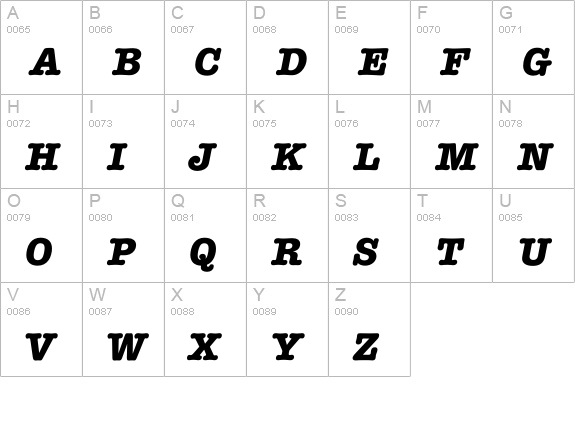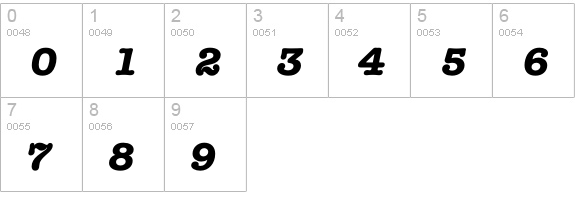
RomtypewriterBoldItalic Font Details
RomtypewriterBoldItalic is a striking and versatile font that combines boldness with elegance. Its italicized style adds a touch of sophistication to any design project, making it perfect for headings, titles, and quotes. This font exudes a sense of modernity and creativity, making it a great choice for both print and digital media. What sets RomtypewriterBoldItalic apart is not just its aesthetic appeal, but also its availability as a free download. You can easily access this font at FontsMarket.com, where you can enhance your creative projects without any cost. Whether you're working on a poster, website, or branding materials, RomtypewriterBoldItalic is a reliable and eye-catching option that will elevate your design to the next level. Download it today and unleash your creativity with this stunning font.